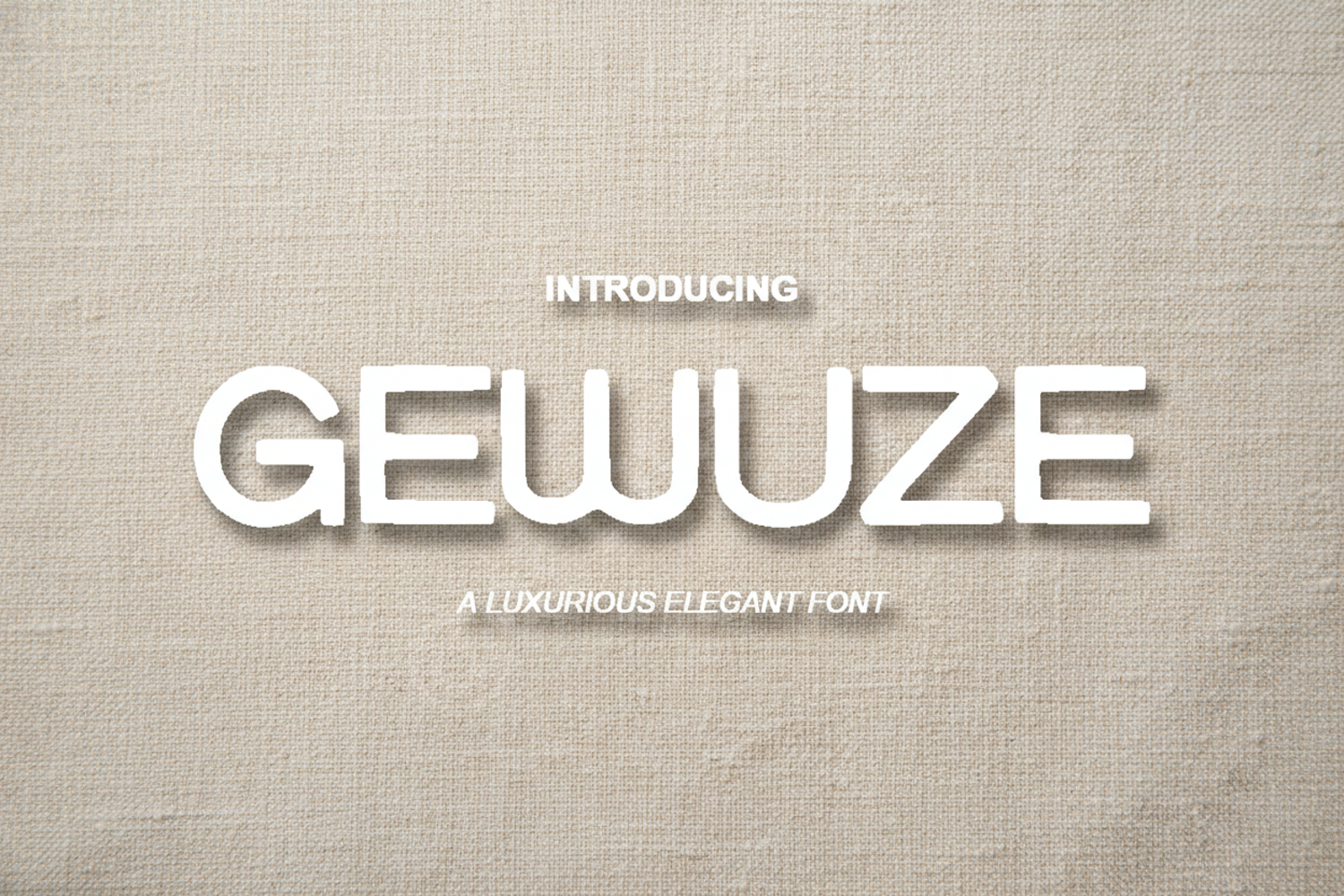
Gewuze - Sophisticated Modern Sans Serif
Gewuze
Gewuze is a premium modern sans serif font designed for creators who demand elegance and versatility. With its clean lines and balanced proportions, this typeface offers a sophisticated touch to any creative project, ensuring your designs stand out with a professional edge. Its timeless aesthetic makes it a staple for any designer's toolkit.
- Full character set including uppercase, lowercase, numbers, and punctuation
- Multilingual support for global accessibility
- Branding and Identity: Create memorable logos and cohesive brand guidelines.
- Editorial Design: Perfect for magazine headers and clean, readable body text.
- Digital Marketing: Elevate social media graphics, web banners, and app interfaces.
- Print Media: Ideal for business cards, posters, and high-end product packaging.
- Wedding Stationery: Add a modern, minimalist flair to invitations and event menus.